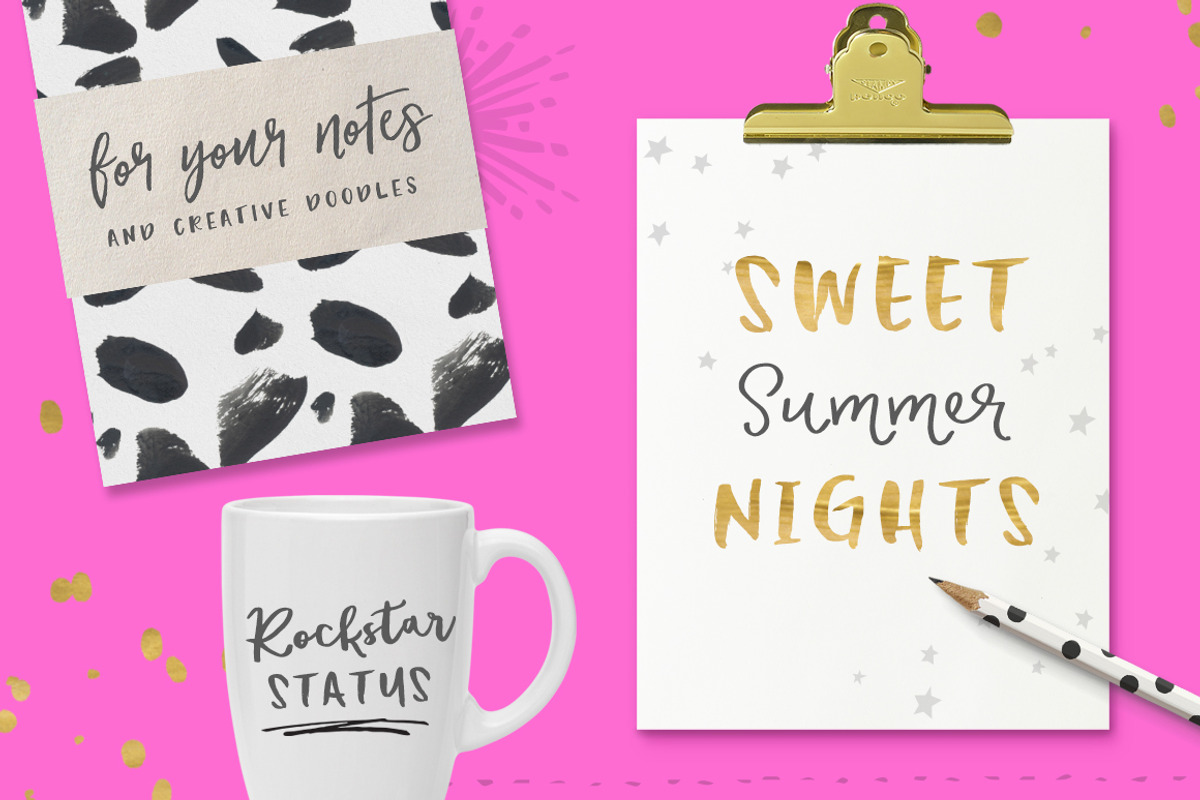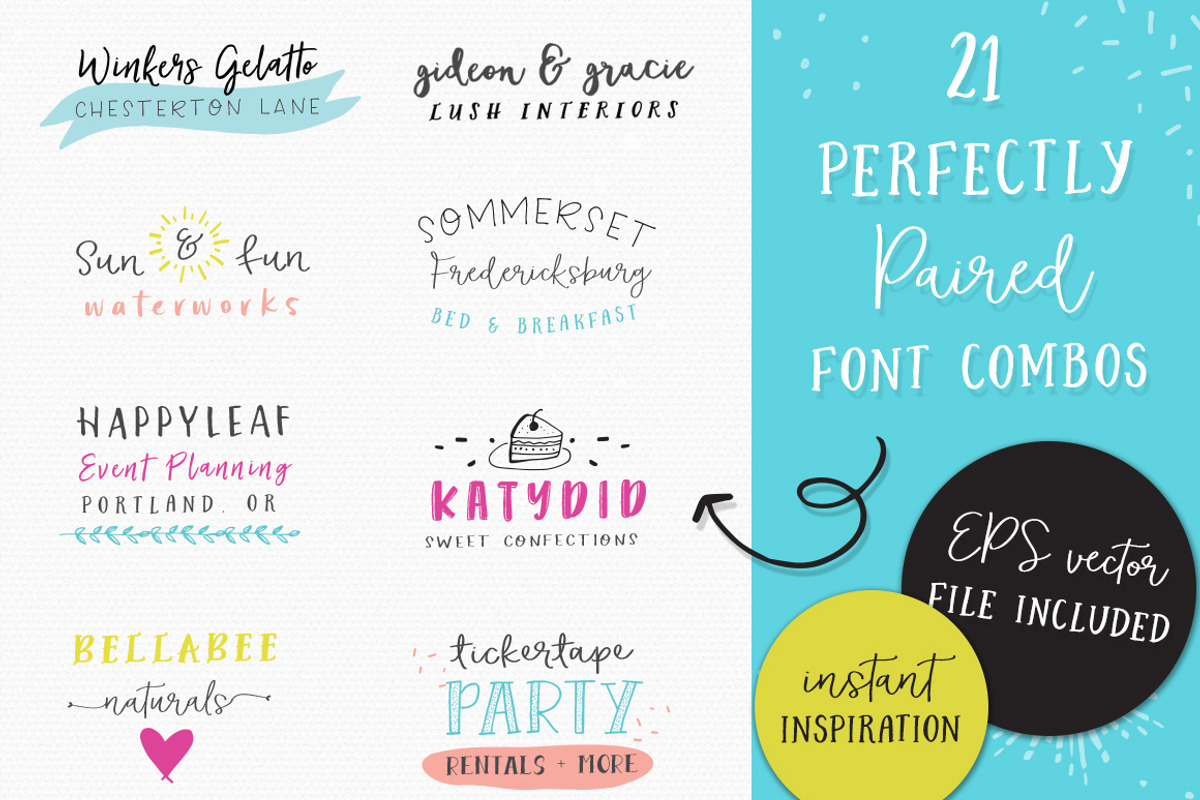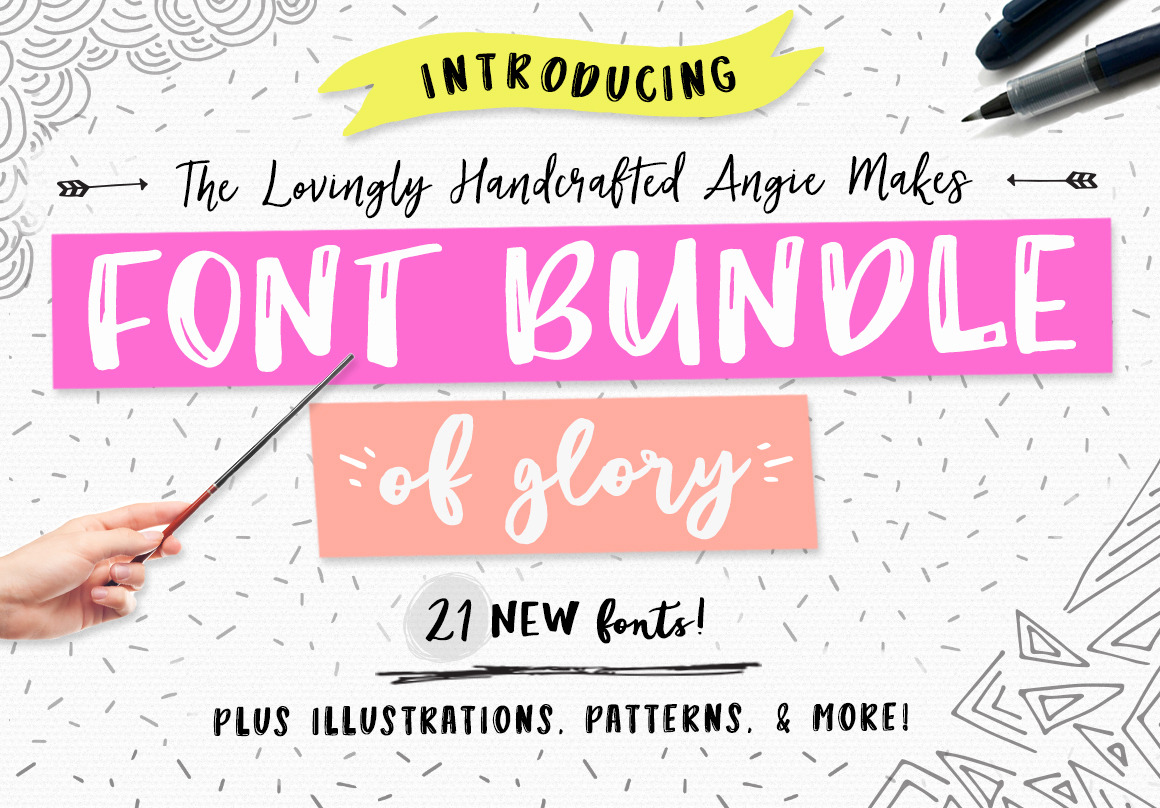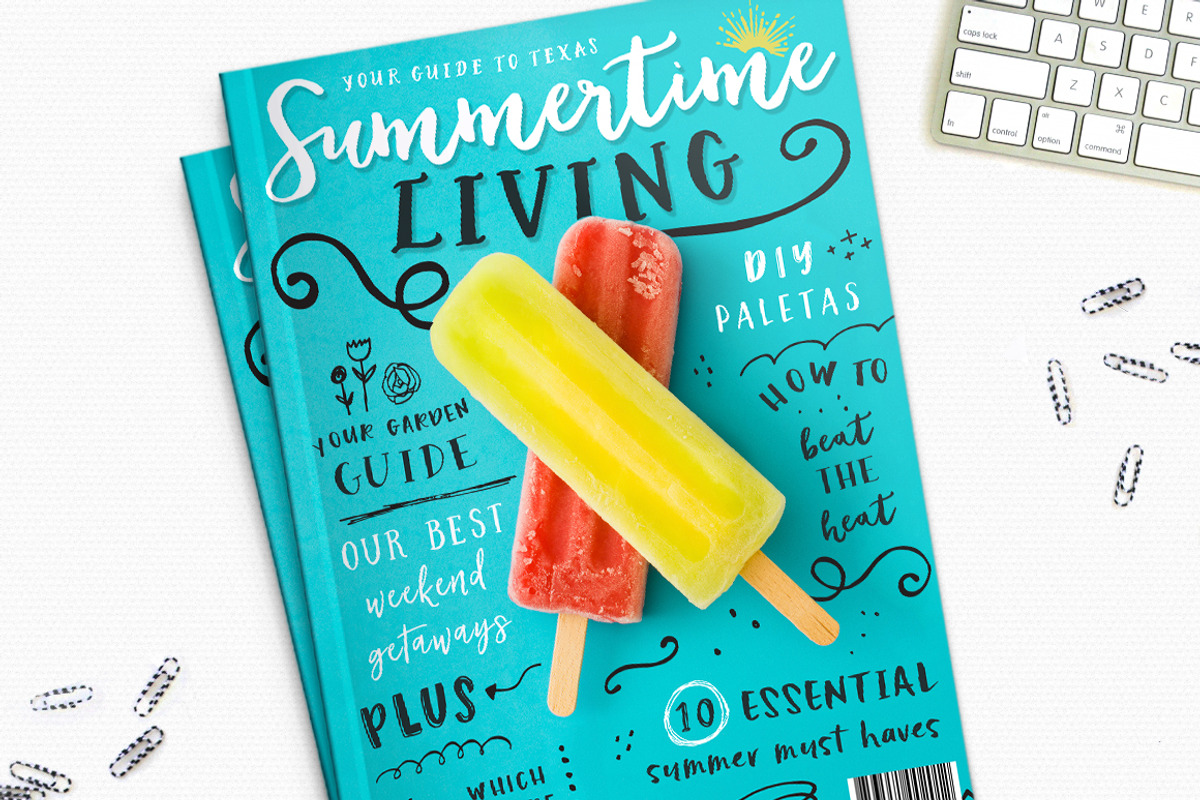
Angie Makes Font Bundle of Glory
Introducing the long-awaited, delightfully handmade ★ANGIE MAKES FONT BUNDLE OF GLORY★
Use these coveted, high-quality fonts + extras to create the type and graphic design projects of your dreams. Wowzers! You're going to have fun with all of these little goodies.
★The Fonts★
- Blacksheep: Regular + Italic. A too cute hand brushed script with sophistication. Looks great in all caps too.
- Claphands: Filled + Half-Filled. Uppercase is half-filled and lowercase is solid. A playful all caps font with some serious girth. Perfect display font to make your text stand out from the crowd. *PUA Encoded.
- Dahlia Darling: An adorable hand brushed calligraphy script font with thick and thin variation and a dancing baseline.
- Fandangle: Regular + Bold. A super smooth and whimsical script font. Choose from 9 swash styles that can be added seamlessly. *PUA encoded.
- Fineday: A super playful, handdrawn script font. Make sure you turn on your Open Type features to see this natural handwritten font at its best.
- Funfetti: A too cute, all caps serif font that goes with everything.
- Helsinki: A happy all caps sans-serif font that goes with everything.
- Hola Bonita: This font is a hand brushed beauty. Rough, dry brush texture that looks fabulous in all caps too. Alternates for each uppercase and lowercase letter included.*PUA Encoded.
- Hoodwink: Filled, Hollow, and Dotty Versions. A sophisticated serif display font for titles, headers, and more.
- Ladyfinger: A super trendy, modern script font with serious slant and a cool kid vibe. You'll love it!
- Okey Doke: Filled + Hollow. A totally funky block letter font. Uppercase is filled and lowercase is hollow. Perfect for some wonderful handdrawn vibes. *PUA Encoded
- Rockaby: Regular + Bold. A handdrawn, all caps font with a ton of personality. Great for pairing!
- Seafair: Regular + Italic. A thick, romanesque serif font with a ton of spunk.
- Shippey: An all caps font with a thick body and outline. Handdrawn block letter goodness with tons of character!
★The Extras★
- 60 Photoshop Patterns: These patterns include black and white inky patterns, totally rad + colorful geometric patterns, and some blinging gold textures.
- Doodles: More than 200 doodles. Cute animals, swirls, swashes, and the whole kitchen sink! EPS vector file and PNG images included. Design ready.
- Font Pairing Guide / Logo Templates: 21 Templates with fonts paired to perfection. Steal my font pairing ideas or mix + match to make your own. Use them for labels, stickers, logos, and more!
- Font Guide: A handy image guide with all the fonts and styles in alphabetical order.